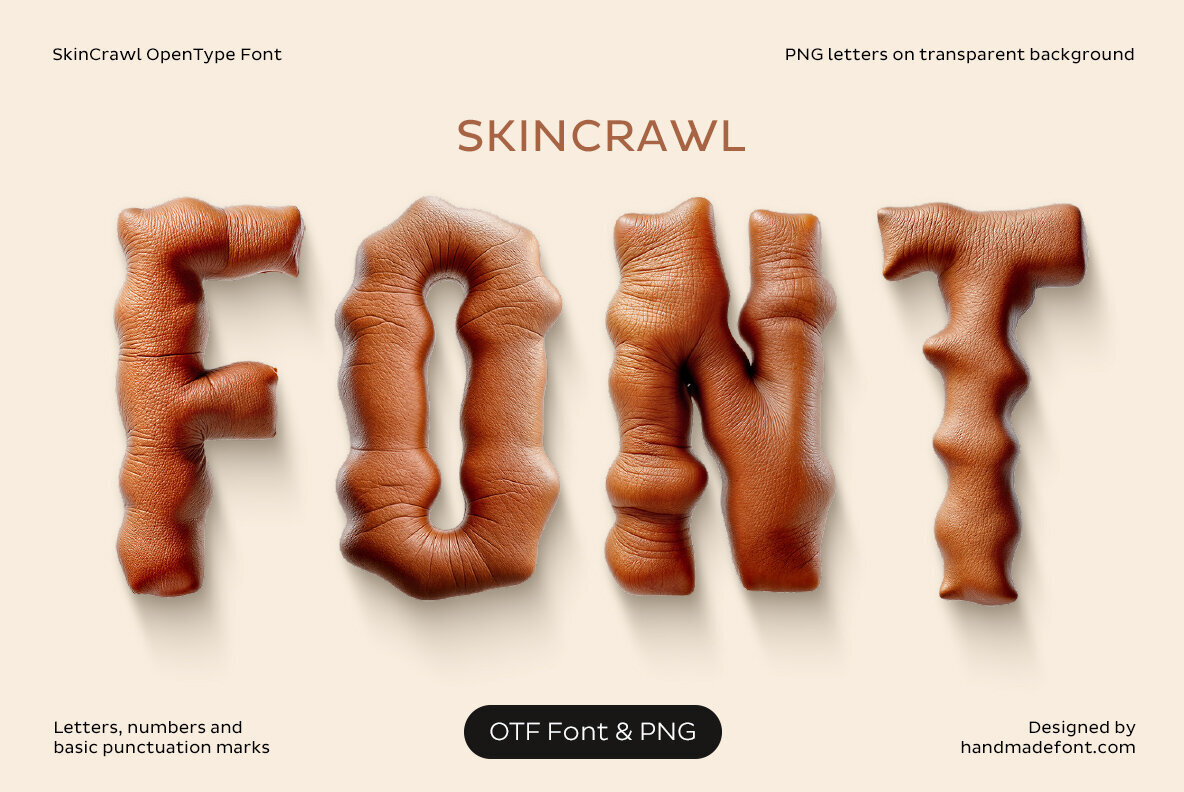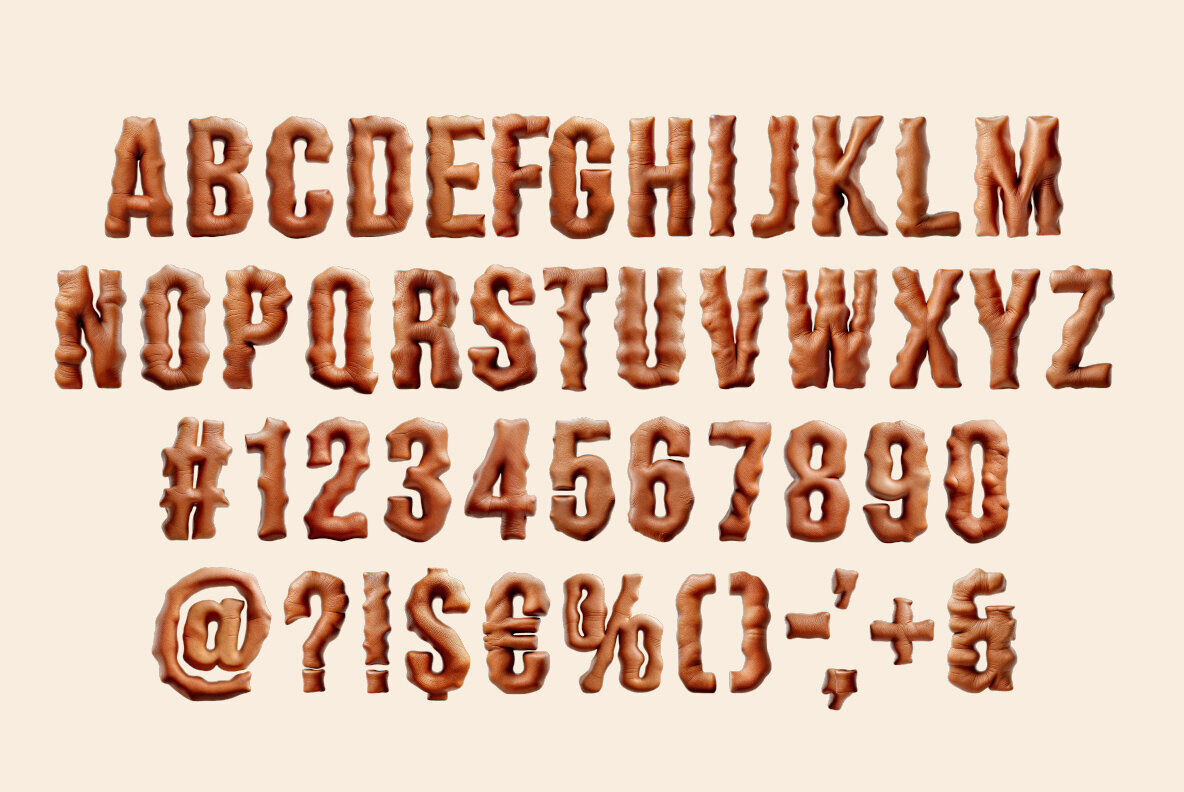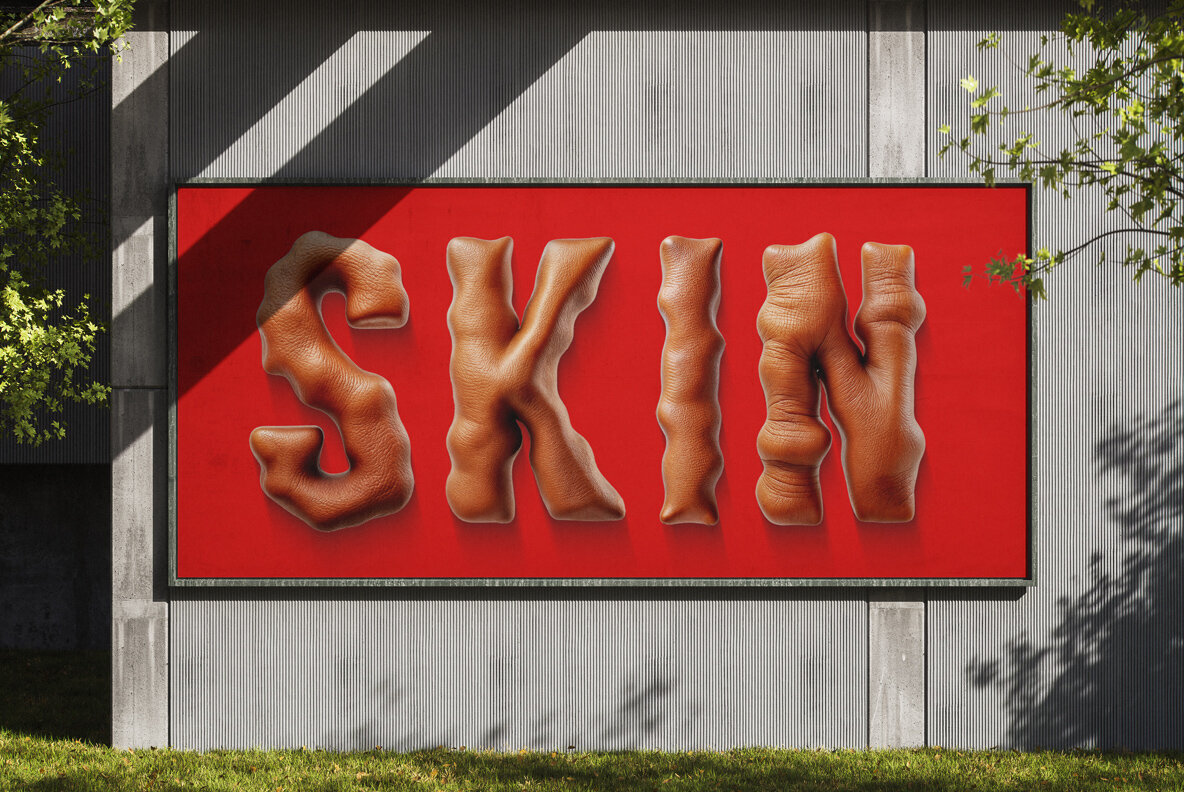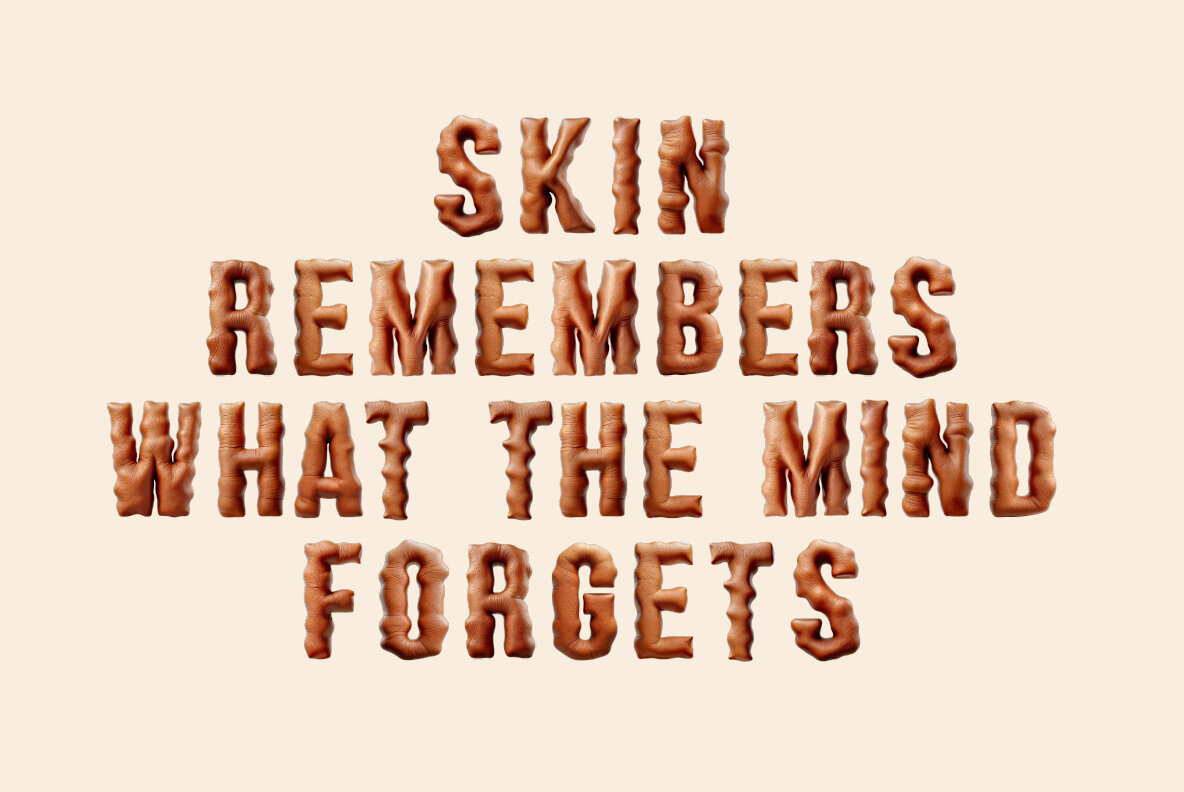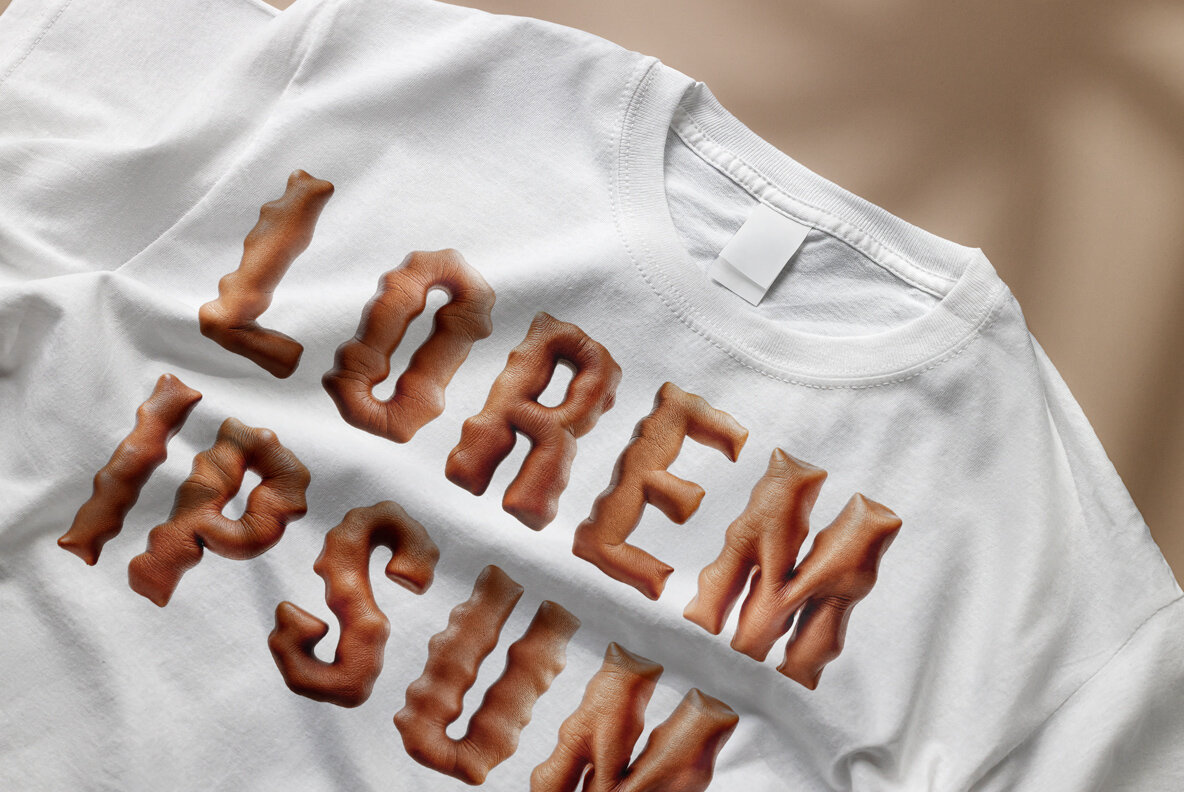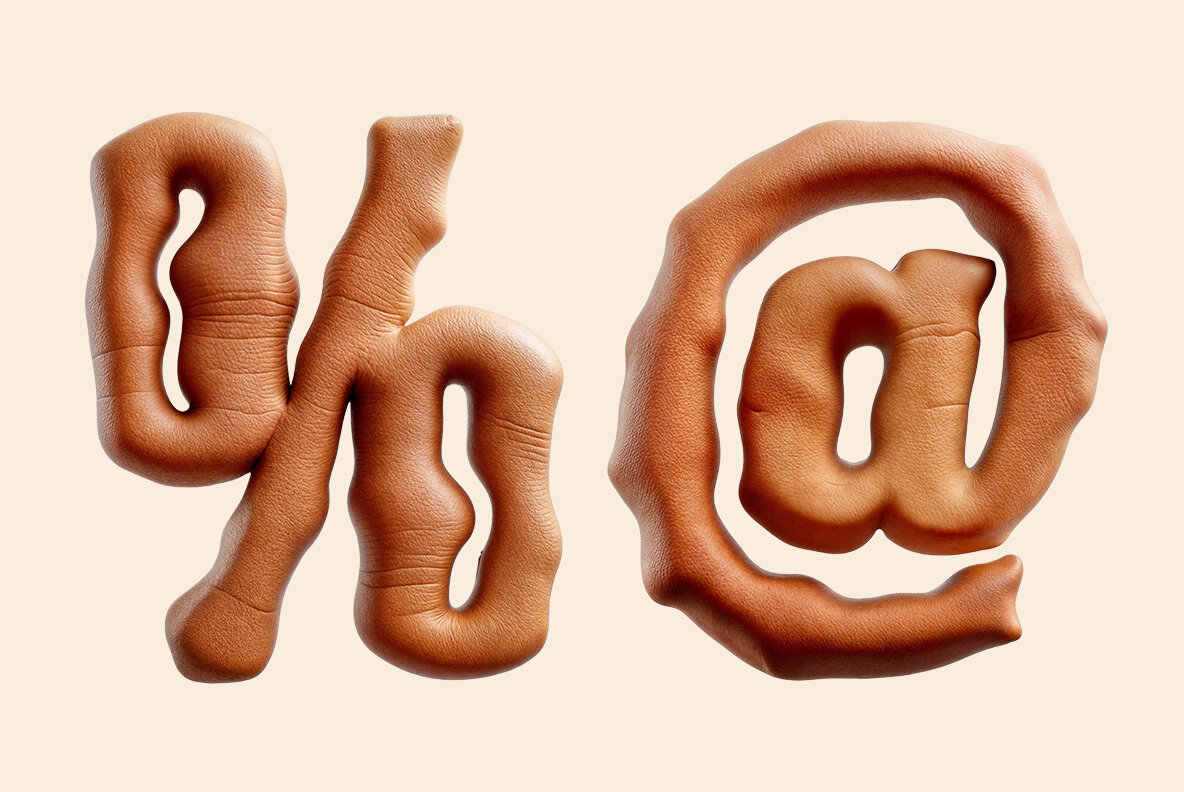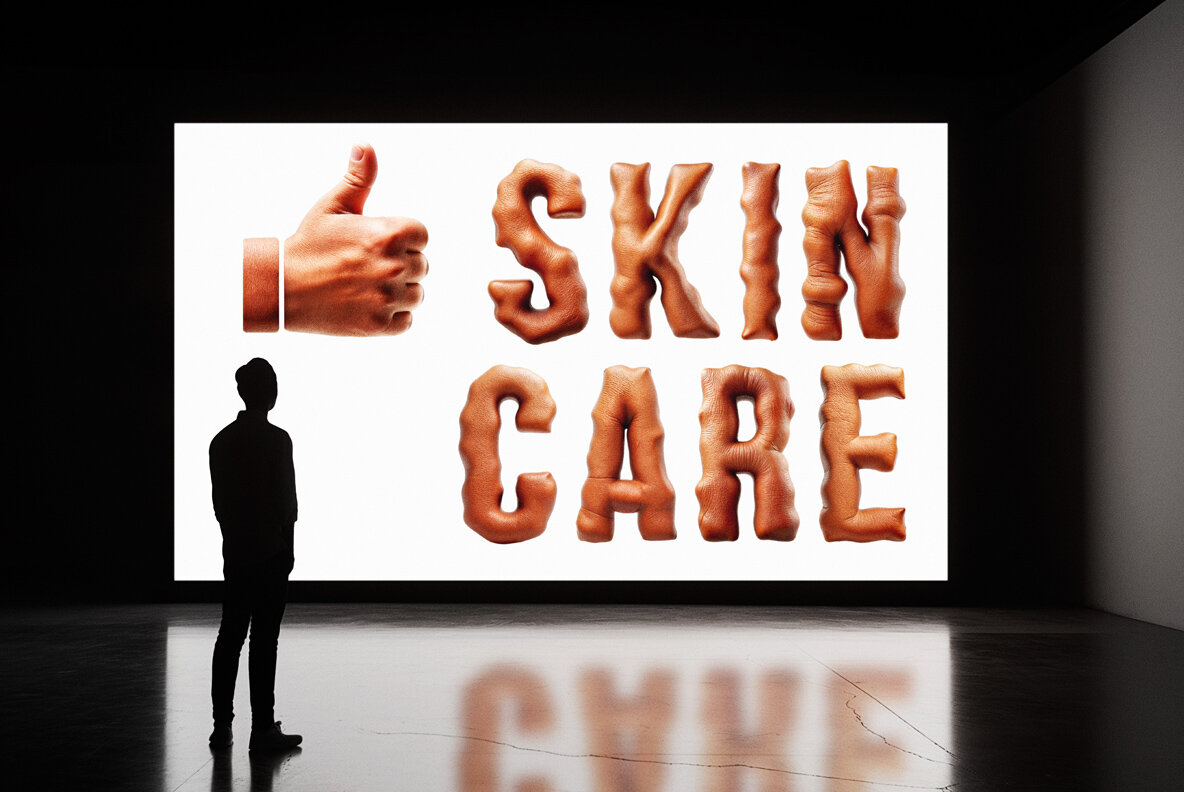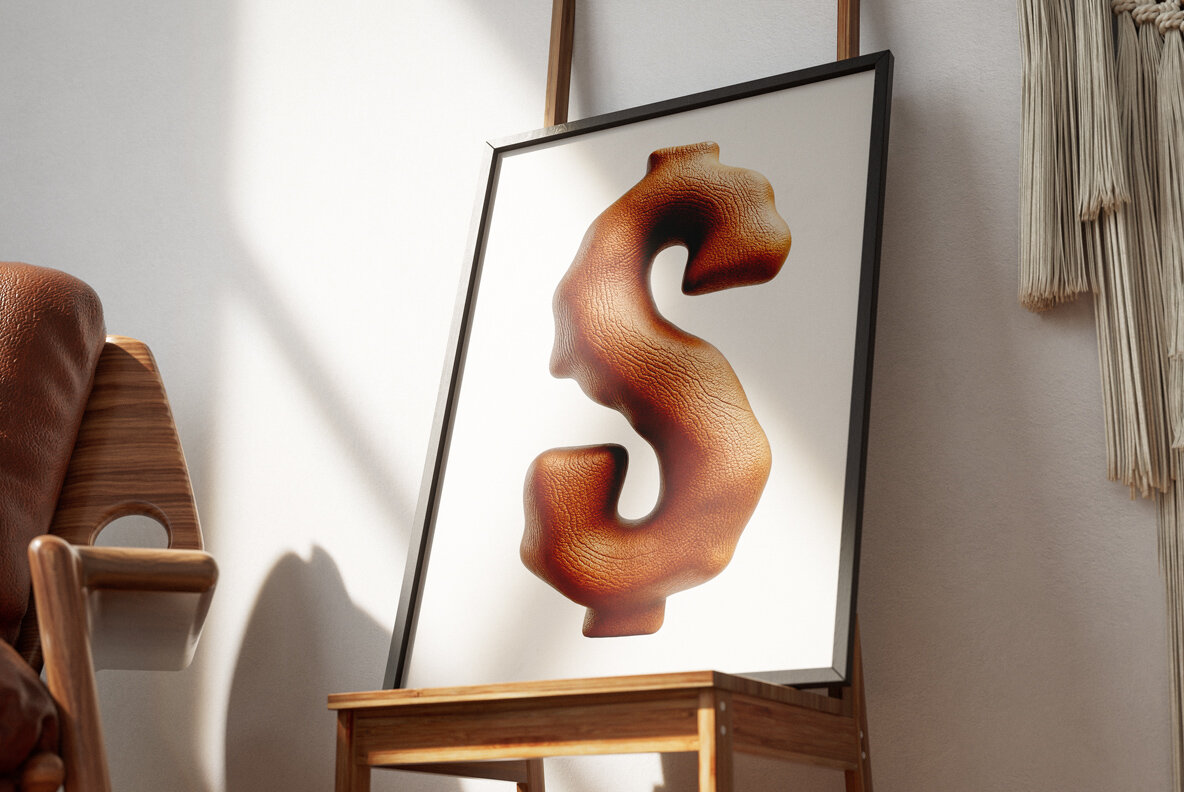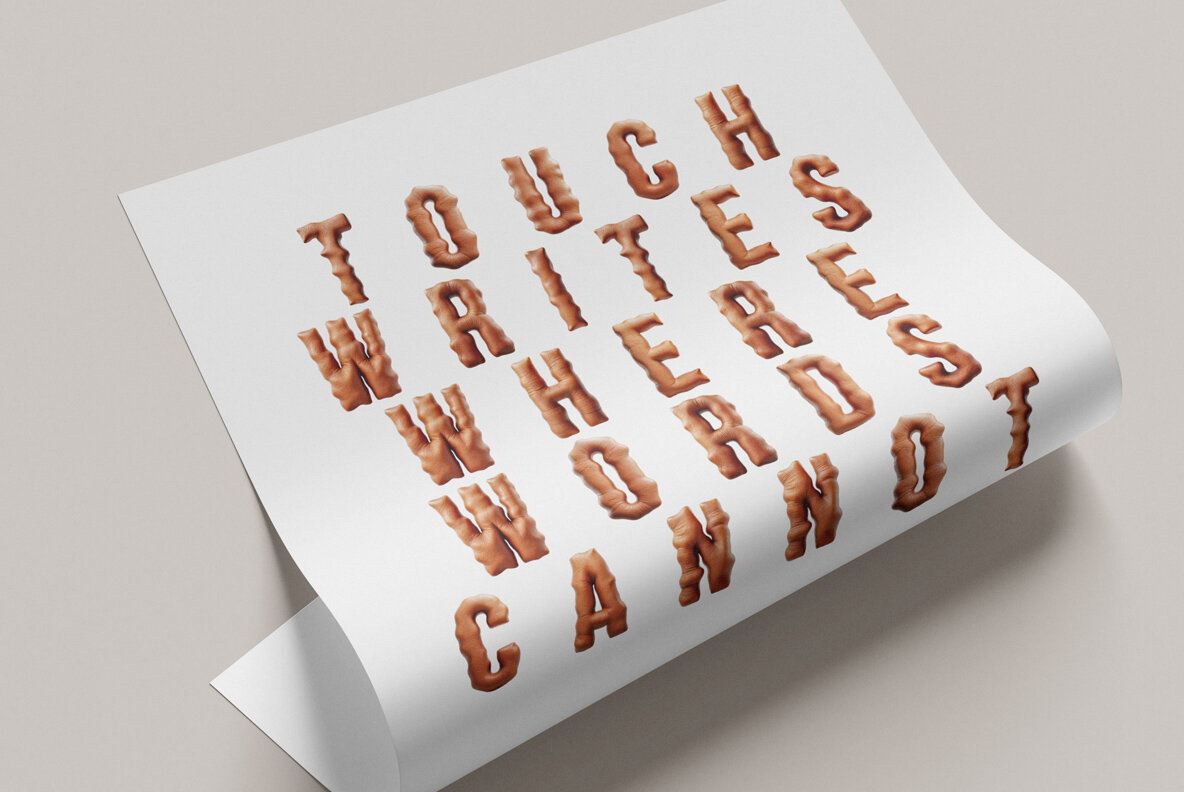
Discover Skin Crawl, a typeface crafted to make an eerie impression. With its lifelike texture that mimics living skin—complete with wrinkled curves and organic folds—it transforms ordinary text into spine-chilling art. Whether you're working on horror-themed projects, avant-garde fashion, or anything that benefits from a touch of the macabre, Skin Crawl ensures your message gets noticed in the creepiest way possible. This bold and bizarre font is perfect for those looking to induce a shiver with their designs. While extended language support isn't included, all punctuation characters and key accents are available as individual PNG images, allowing for creative flexibility in your graphic design work.Skin Crawl Typeface